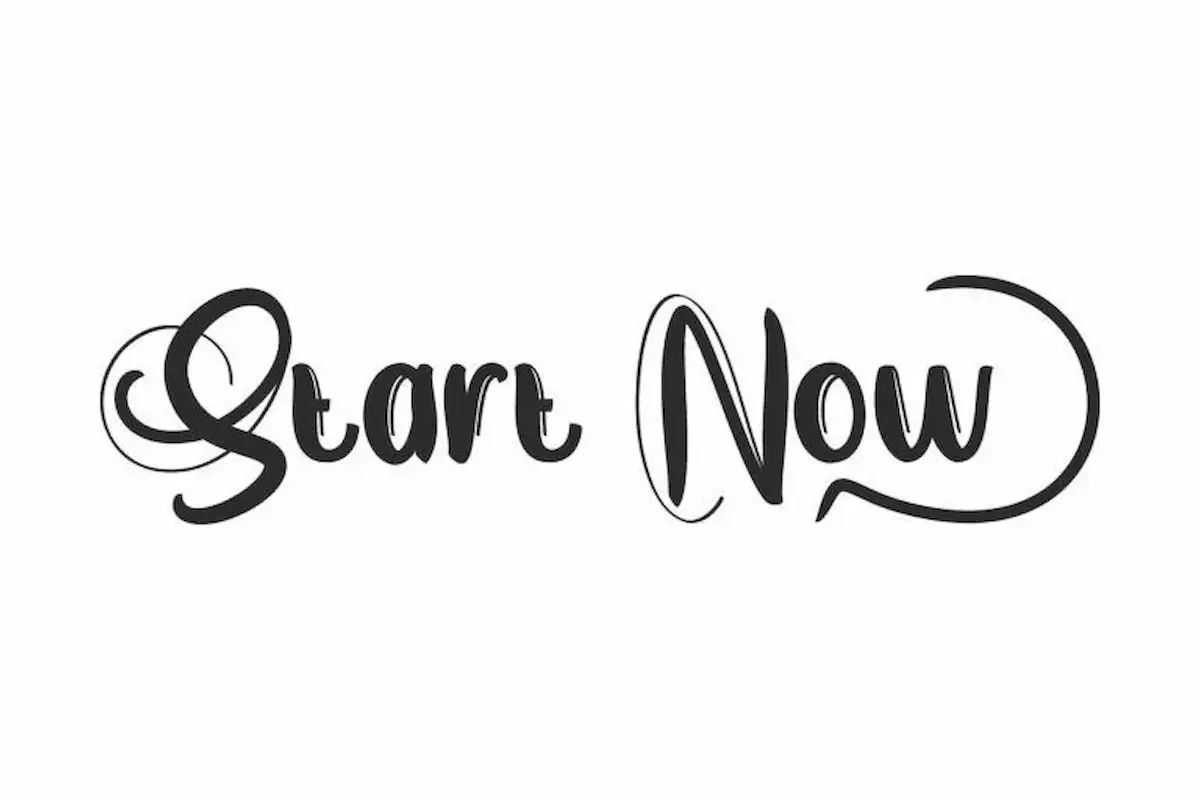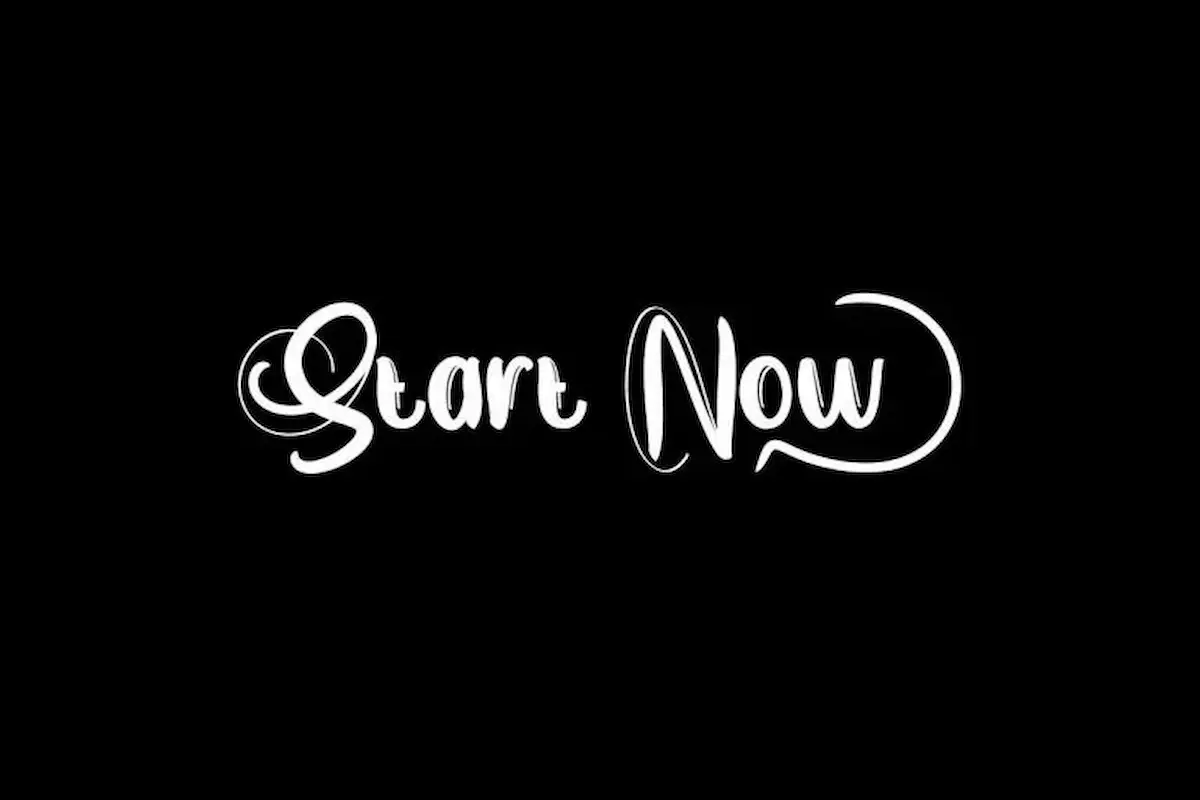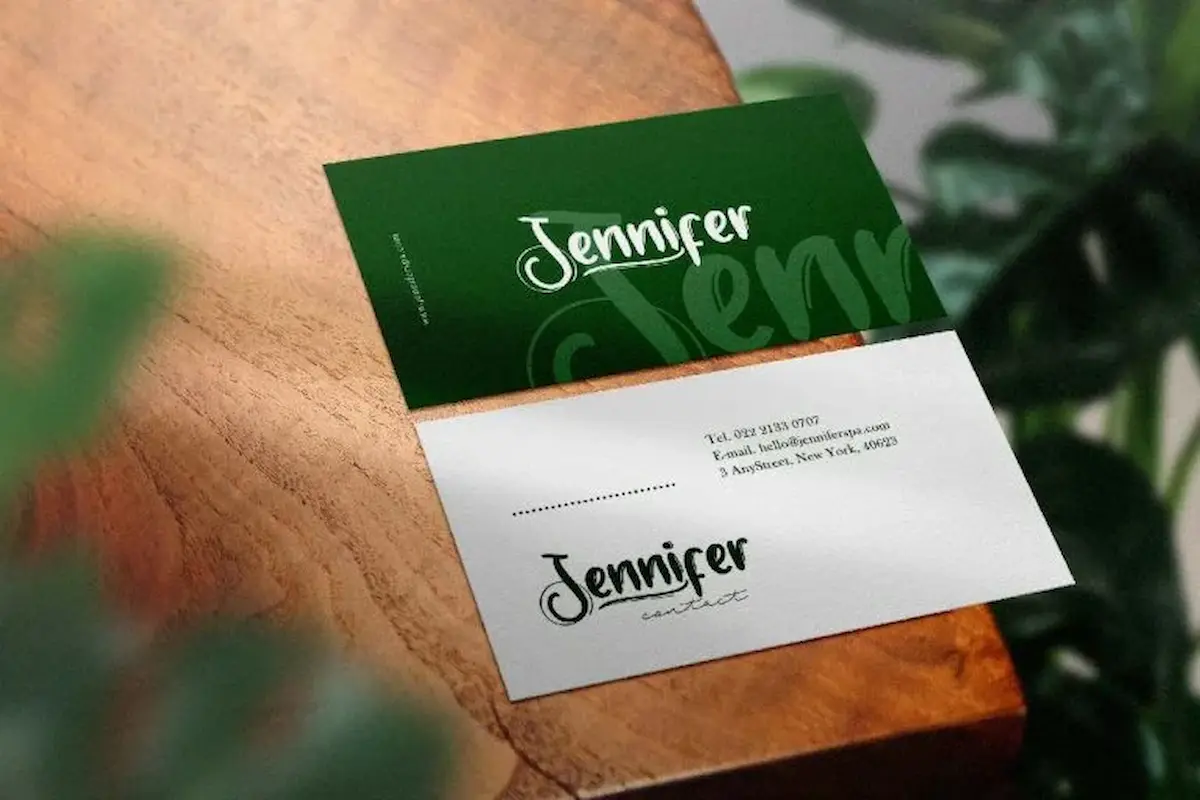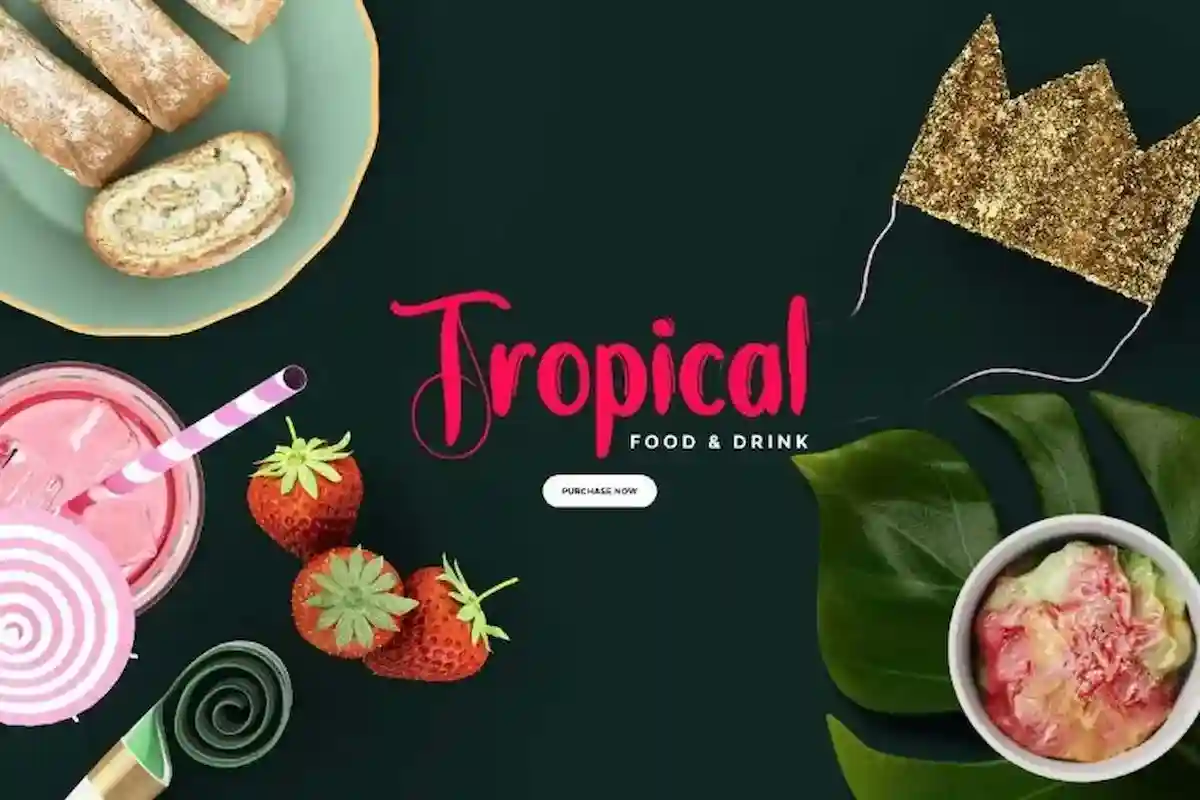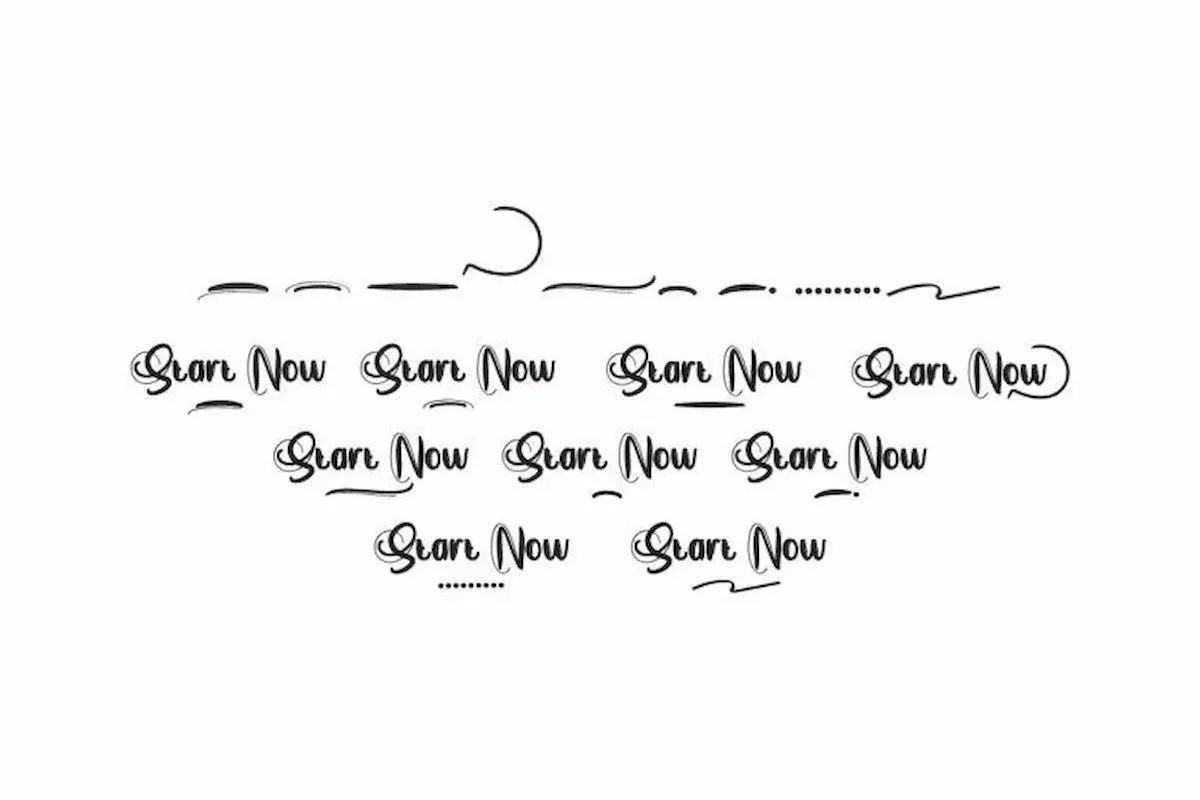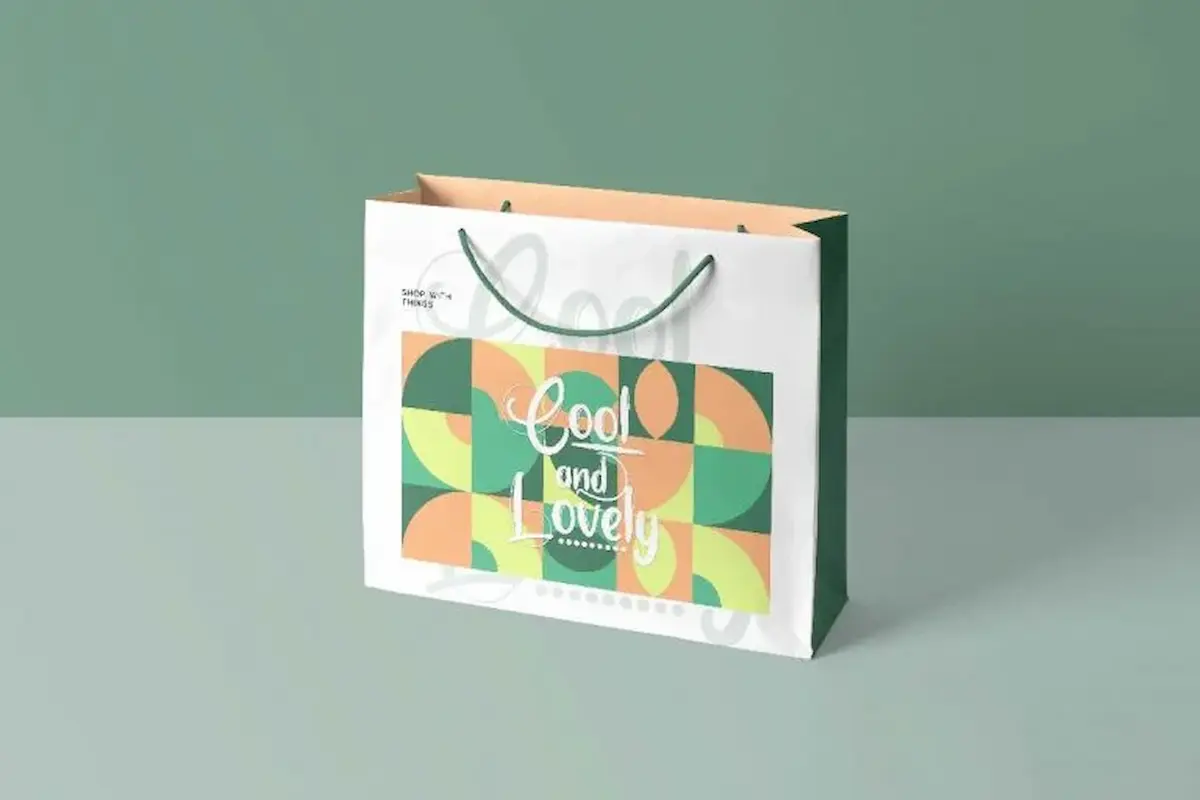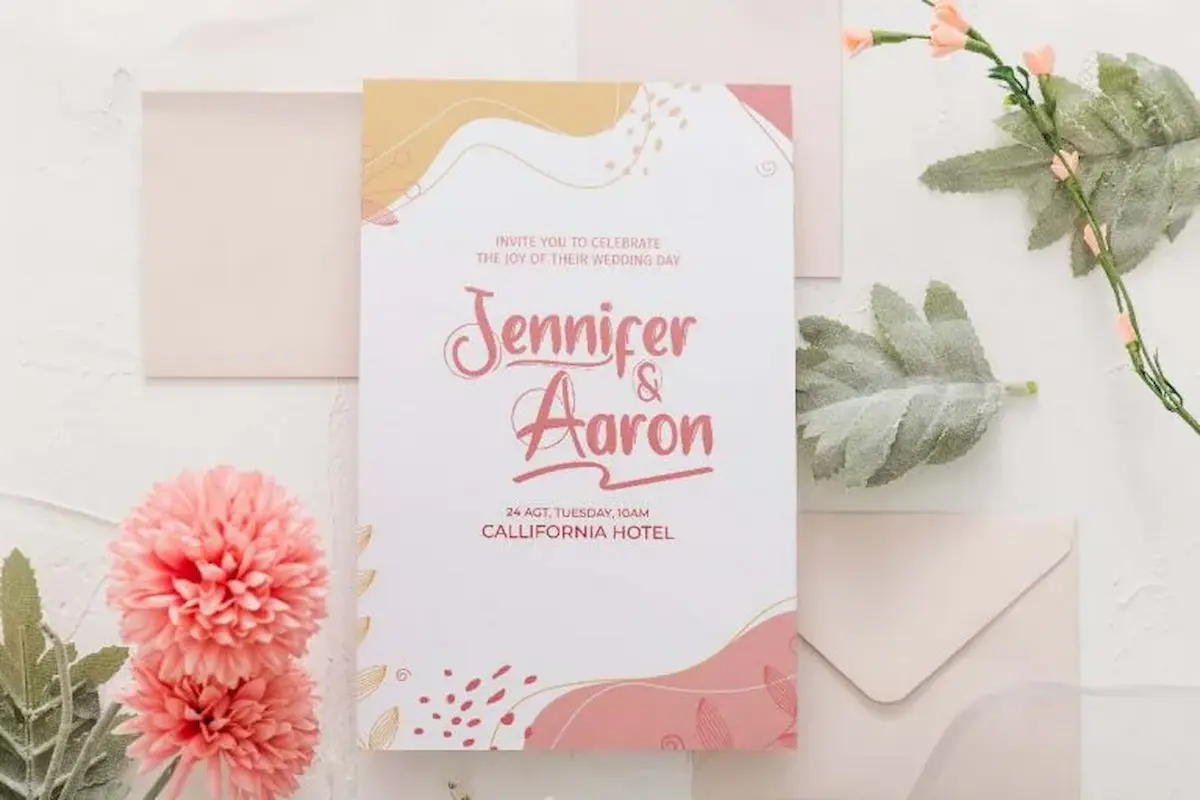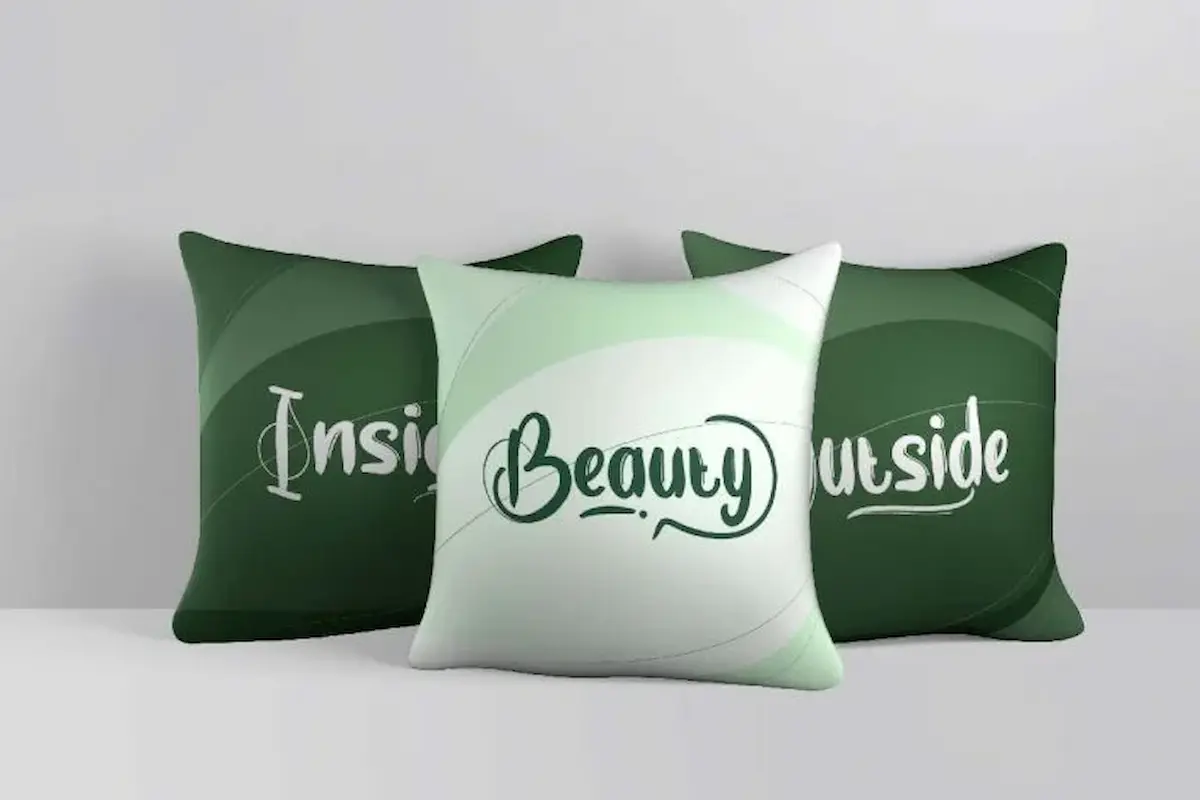
Start Now Font is a stylish brush script font by NihStudio. Made for food enthusiast, weddings, branding etc
Start Now Font will be great for any projects (require extended license) including : branding, logo, stationery, wedding invitation, signage, flyer, video tittle etc. The theme style of the font is unique, natural, beauty, movie, sporty, gamer, wedding brush style. The font will be great for many industries including: houseware, cosmetic, events, artist, musician, café, coffee, promotion, etc